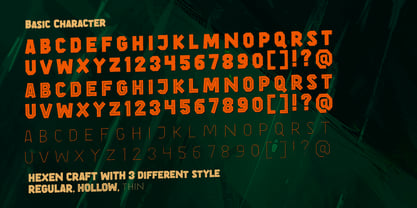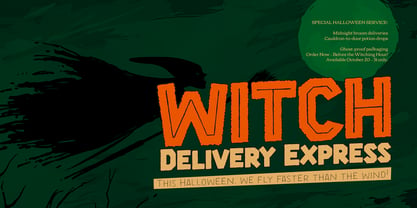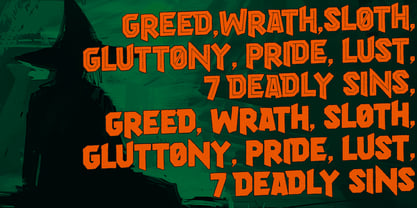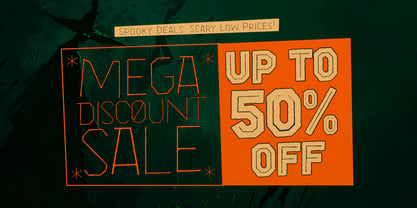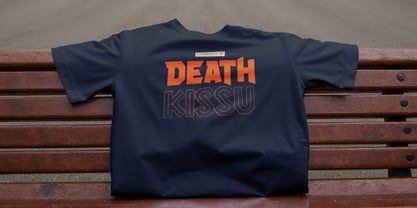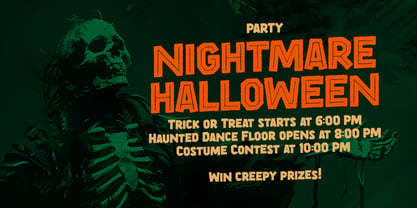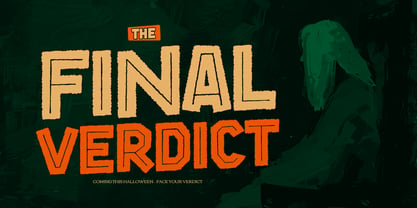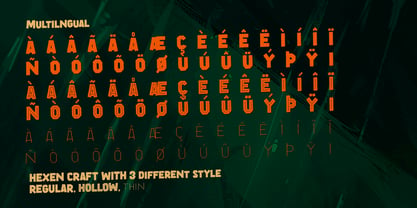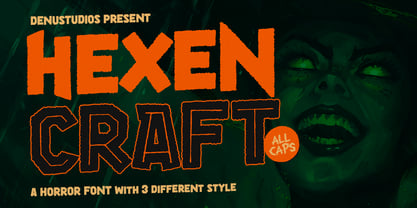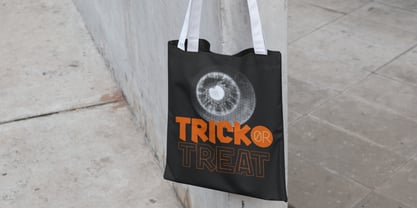
Hexen Craft
The Hexen Craft Font Family was designed by Dede Nugraha and published by Denustudio. Hexen Craft contains 3 styles and family package options. More about this family
Hexen Craft | Horror Font, from Denustudios, suitable for any projects such as: logos, branding projects, homeware designs, product packaging, mugs, quotes, posters, shopping bags, t-shirts, book covers, name card, invitation cards, greeting cards, label, photography, watermark, special events, and all your other lovely projects that need a Horror taste.